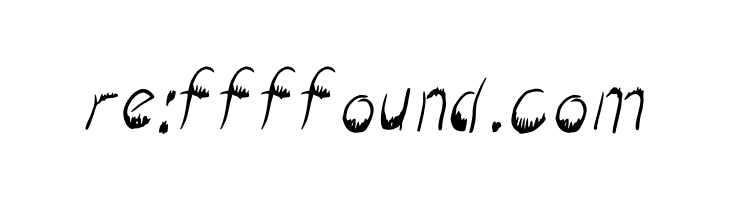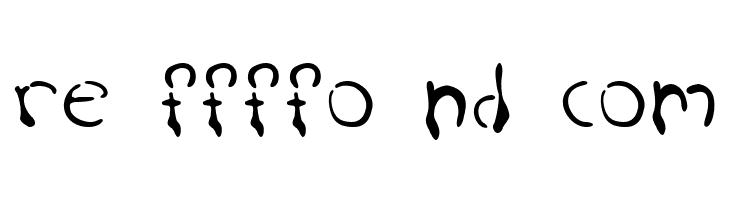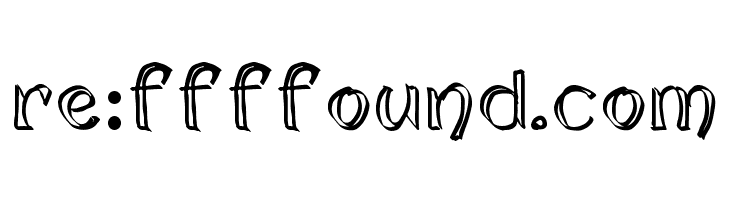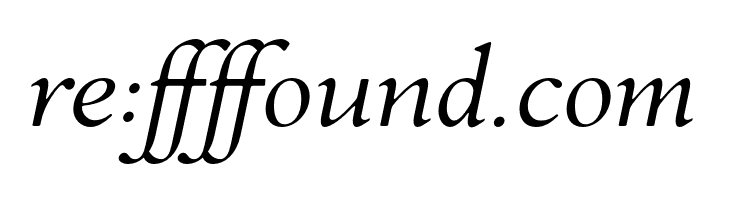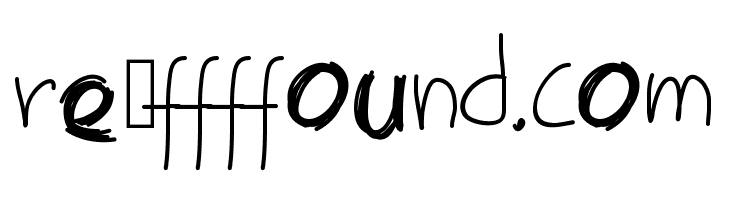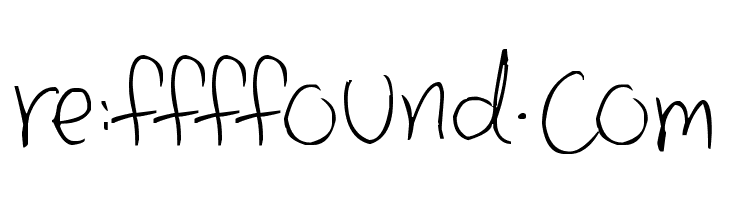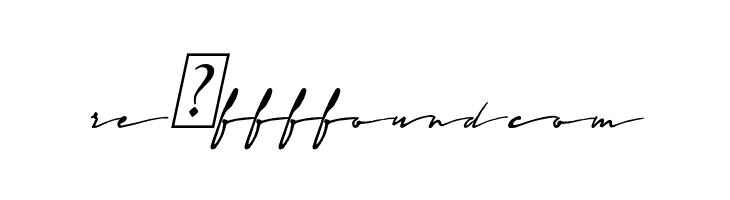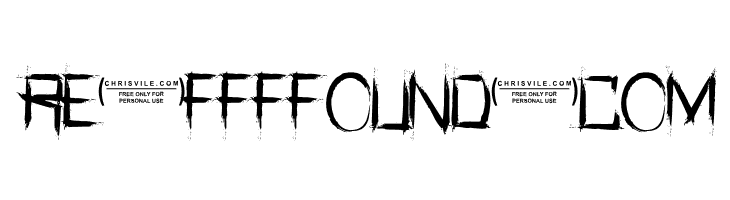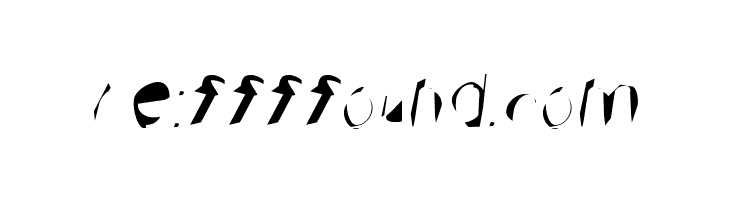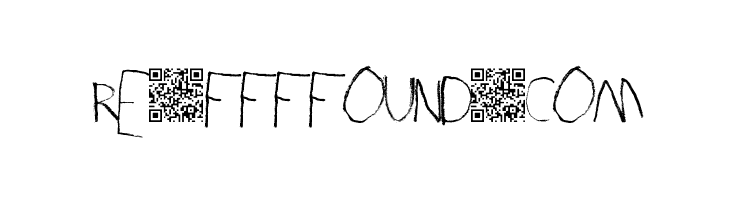
A playful, hand-drawn font with irregular, dynamic strokes.
A hand-drawn, casual font with an organic and lively appearance.
A playful, handwritten font with a casual and dynamic style.
A flowing, cursive font with elegant, elongated letterforms and a handwritten appearance.
A jagged, distressed font ideal for horror themes.
A bold, jagged font with a horror-themed, menacing appearance.
A bold, distressed font with a grunge-like, hand-drawn appearance.
A hand-drawn, textured font with an artistic and casual style.
A jagged, distressed font with an eerie, horror-themed style.
A sketch-like, hand-drawn font with an artistic and playful style.
A hand-drawn, expressive font with irregular, organic strokes.
An elegant serif typeface with a refined italic style and pronounced serifs.
A playful, hand-drawn font with a whimsical and dynamic style.
A whimsical and artistic font with flowing, cursive-like strokes.
A bold, italicized font with a modern, dynamic style.
A playful, hand-drawn font with medium contrast and a whimsical style.
A classic, distressed font with medium contrast and a hand-crafted feel.
An elegant and flowing script font with classic cursive letterforms.
A raw, edgy, hand-drawn font with a chaotic and rebellious vibe.
A bold, brush-stroke font with high contrast and dynamic movement.
A cursive, handwritten font with fluid, connected strokes.
A stylish blend of cursive elegance and bold modernity.
A playful, hand-drawn font with a sketch-like, energetic style.
A playful, hand-drawn script with irregular, expressive strokes.
A calligraphic mirror writing font with elegant curves and historical charm.
A bold, distressed font with a hand-drawn, grunge aesthetic.
A dynamic, cursive font with fluid strokes and a modern, stylish appearance.
An energetic, italic font with jagged, textured strokes.
An artistic, ancient-inspired font with flowing, decorative forms.
A playful, fluid font with irregular, liquid-like shapes and dynamic strokes.
A playful, hand-drawn font with bold, varied strokes and a whimsical style.
An elegant italic serif font with moderate contrast and refined serifs.
A playful, hand-drawn font with irregular, organic lines.